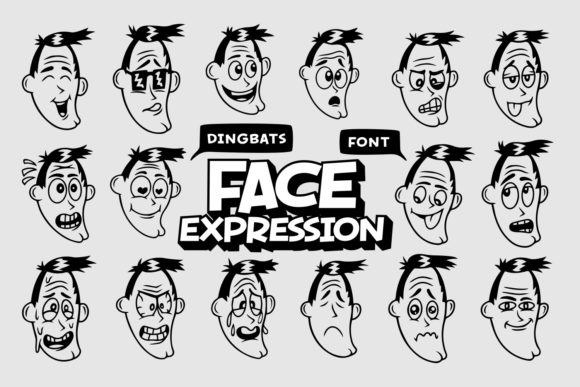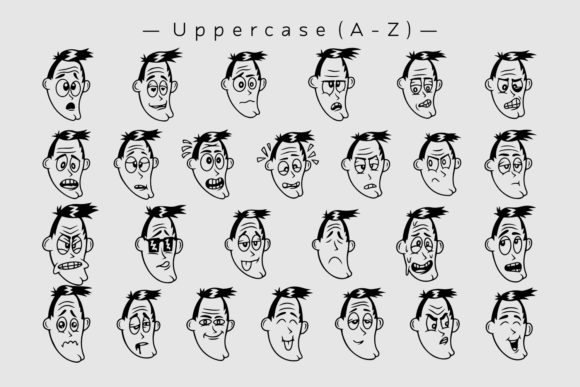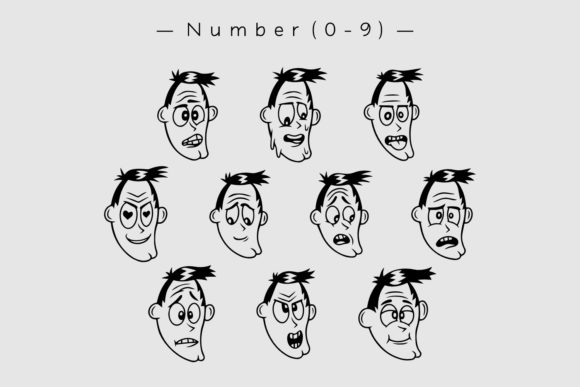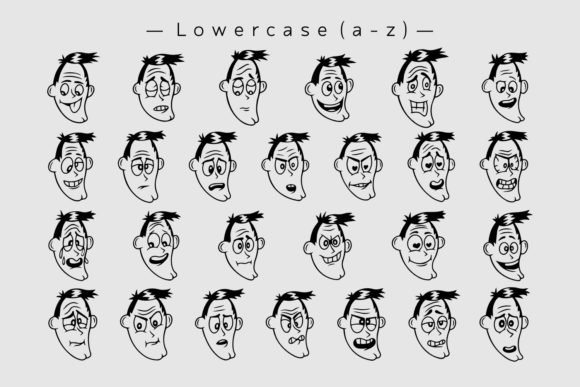
About Face Expression Font
“Face Expression” is a playful and versatile dingbats font that will bring a delightful touch to your projects. With its collection of expressive face icons, this font allows you to add a wide range of emotions and personalities to your designs.
Featuring a variety of facial expressions, “Face Expression” offers an array of emotions such as happiness, sadness, surprise, anger, and more. These icons can be used to convey feelings and moods, adding an extra layer of visual communication to your designs.
The versatility of “Face Expression” allows you to use the icons in various creative ways. They can be used as standalone elements, creating engaging visuals or providing visual cues to your audience. Additionally, you can incorporate them into typography, turning letters or words into expressive faces, or even use them as decorative elements within your design.
Whether you’re designing social media graphics, greeting cards, posters, or any other project that requires a touch of fun and personality, “Face Expression” will certainly elevate your designs. It’s especially suitable for projects targeting a younger audience, as the expressive faces can capture their attention and evoke a sense of playfulness.
With “Face Expression” in your font library, you’ll have a fun and useful tool to add personality and liveliness to your creative projects. Embrace the expressive faces and let them bring joy and amusement to your designs. Get ready to captivate your audience with the myriad emotions that “Face Expression” has to offer!